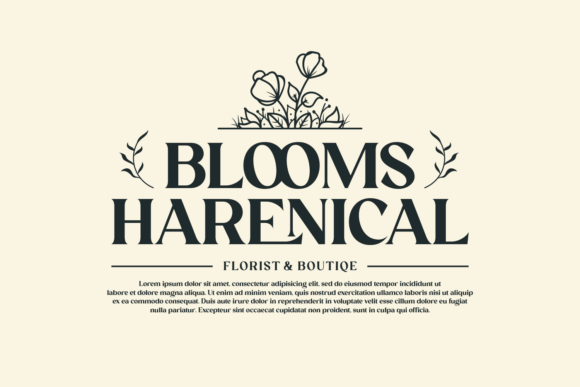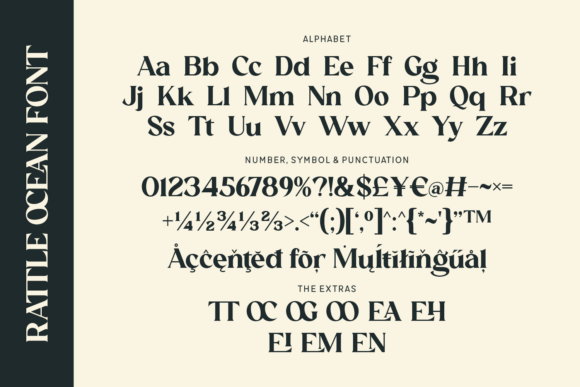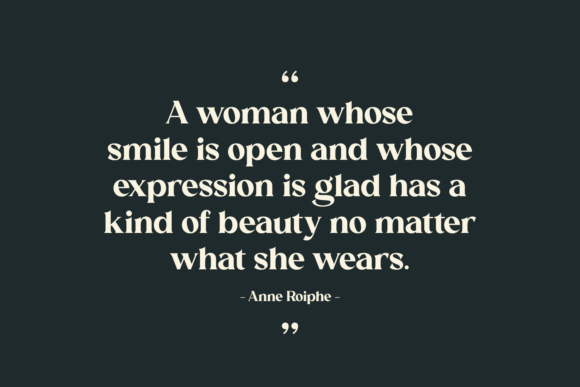
Introduction to Rattle Ocean Font
Have you ever been working on a creative project, pouring your heart and soul into every detail, only to be stumped by the perfect font? You envision a headline that pops, a title that screams sophistication, but nothing seems to fit quite right. That’s where Rattle Ocean Font comes in – a stylish editorial serif font that combines elegance with modern flair, making it the perfect design resource for any creative endeavor.
With its graceful curves and sharp edges, Rattle Ocean Font adds a touch of sophistication to any design. Whether you’re working on a high-quality print layout or a digital project with a transparent background, this versatile font is sure to make your text stand out beautifully. And the best part? It’s available for free download, making it an invaluable asset for designers of all levels.
Key Features of Rattle Ocean Font
- High-quality, unique design ideal for creative projects and design resources.
- Unique, hand-drawn style that adds a touch of personality to any design project.
- Perfect for use in branding, advertising, and other creative endeavors where a distinctive font is desired.
Honest Review: Rattle Ocean Font
I recently had the chance to work with the Rattle Ocean Font for a creative project, and I must say it’s been a great addition to my design resources. This font is perfect for projects that need a touch of elegance and sophistication.
- High-quality design: The Rattle Ocean Font is incredibly detailed and well-designed, making it a great choice for any project.
- Transparent background: The font’s transparent background makes it easy to layer over other design elements, giving you a lot of creative flexibility.
One of the limitations of the Rattle Ocean Font is its limited character set. While it’s perfect for titles and headings, it may not be the best choice for body text.
Overall, I’m really impressed with the Rattle Ocean Font. It’s a high-quality design resource that’s perfect for adding a touch of elegance to your creative projects. While it may have some limitations, it’s definitely worth checking out – especially if you’re on a budget.
Tips for Getting the Most Out of Rattle Ocean Font
To get the most out of Rattle Ocean Font, use it in conjunction with other high-quality design resources, such as graphics and images. This will help to create a cohesive and visually appealing design. Additionally, experiment with different font sizes and styles to add depth and interest to your design.
Rattle Ocean Font is a versatile design resource that can be used in a variety of creative projects, including graphic design, web design, and social media graphics. It is particularly well-suited for use in designs that require a clean and modern aesthetic, such as business cards, brochures, and flyers.
Alternatives to Rattle Ocean Font
Pacifico is a high-quality, elegant script font ideal for creative projects that require a sophisticated look. It features a smooth, flowing design that works well on transparent backgrounds and is perfect for headings or titles in a design.
Pacifico is a great alternative to Rattle Ocean Font as it offers a similar elegant feel but with a more refined and polished appearance. Use Pacifico for designs that require a touch of sophistication and class.
Q: Can I modify or customize the Rattle Ocean Font for my specific design project?